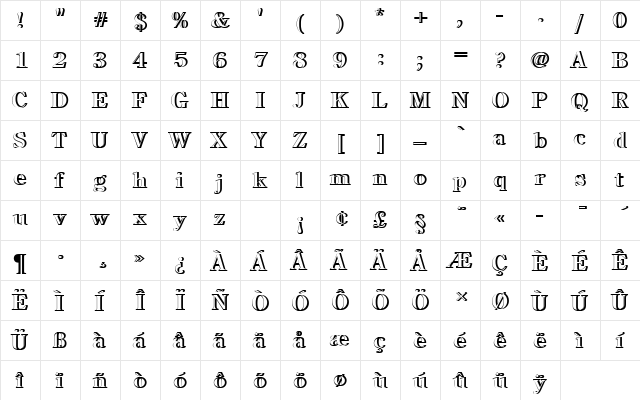
CenturyOldStyTBolRe1 Regular
CenturyOldStyTBolRe1 takes a measured approach to typography — its balanced proportions and neutral character make it a reliable workhorse for both digital and print work.